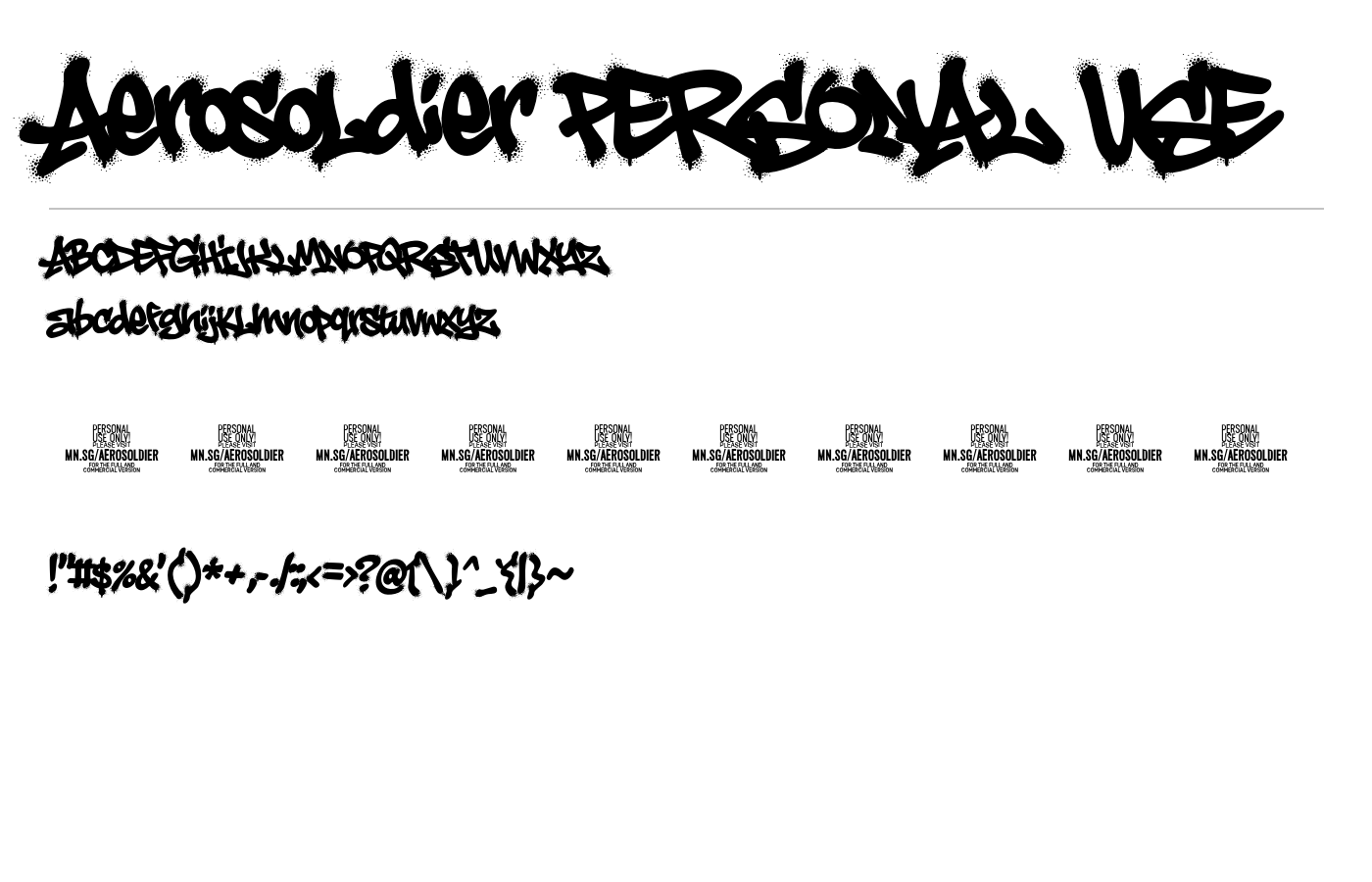
Aerosoldier is a bold, graffiti-inspired display font that captures the raw energy of street art with its jagged, irregular strokes and spray paint texture. Its dynamic, hand-drawn style makes it perfect for edgy branding, urban posters, and expressive headlines where a rebellious, youthful vibe is desired. This font stands out in creative projects that need an authentic, streetwise attitude and bold visual impact.
Aerosoldier PERSONAL USE Font